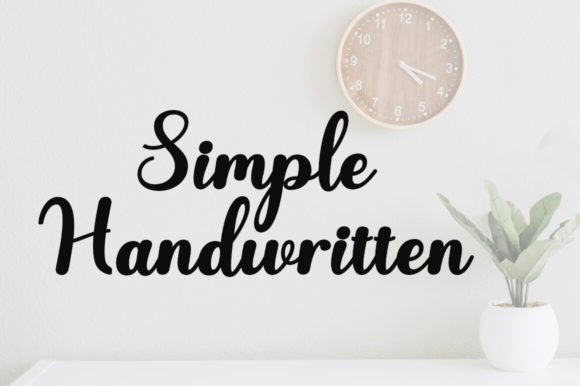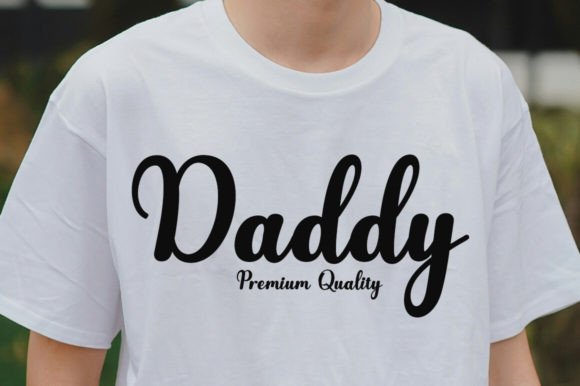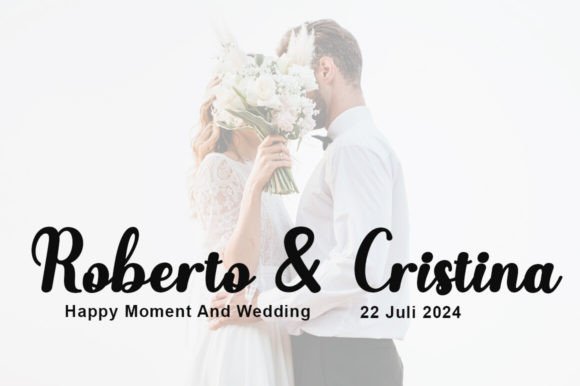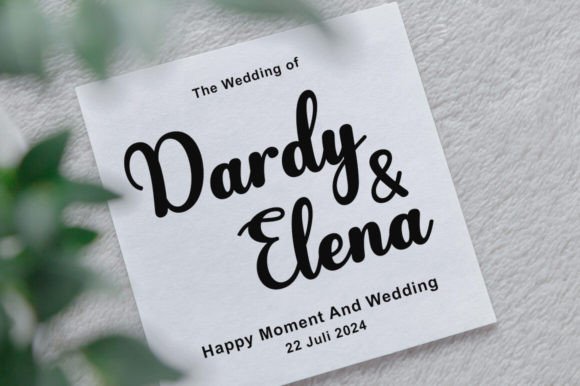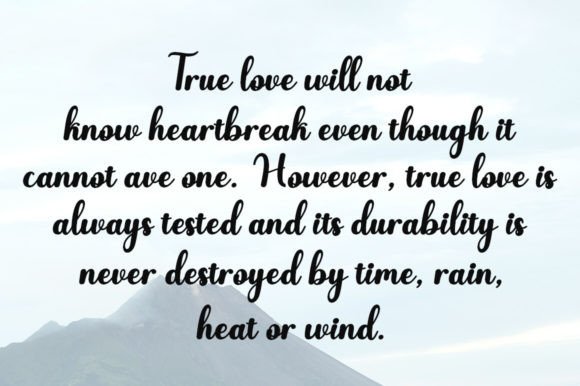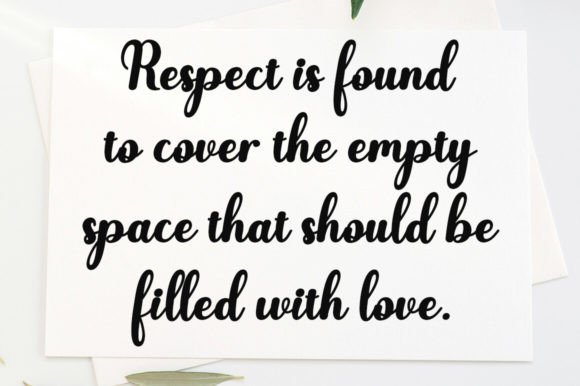
Discover the Timeless Charm of Baby Girl Font
There’s something special about the moment when a design idea clicks – the spark of creativity, the rush of excitement, and the thrill of bringing it to life. For designers, these moments are what make the craft so rewarding. And when it comes to adding a touch of elegance and sophistication to your projects, one font stands out from the rest: Baby Girl.
Baby Girl Font is a beautiful, flowing handwritten font that combines the artistry of traditional calligraphy with a modern, timeless feel. Its carefully crafted characters exude a subtle, handwritten charm that’s perfect for adding a touch of whimsy and personality to your designs. Whether you’re working on a wedding invitation, a baby announcement, or a social media campaign, Baby Girl Font is sure to bring a touch of sophistication and elegance to your creative endeavors.
Baby Girl Font Key Features
- Font Style: Cursive, Script, Handwritten
- Unique Characteristics: Whimsical, playful, and elegant, perfect for baby-related designs, invitations, and other feminine projects
Designer Review: Baby Girl Font
Overall, I think the Baby Girl Font is a cute and playful addition to any design project. It’s perfect for creating a whimsical and childlike atmosphere.
- ✨ Unique and feminine script style
- ✨ Perfect for baby-themed designs, children’s products, and nursery decor
- ✨ Great for adding a touch of sweetness and innocence to your designs
The Baby Girl Font is a great choice for designers who want to create a soft and delicate look. The font’s elegant and cursive style makes it perfect for wedding invitations, birthday cards, and other special occasions.
- ⚠️ Limited versatility – may not be suitable for more mature or serious designs
- ⚠️ Some characters may be difficult to read or understand
In conclusion, the Baby Girl Font is a charming and delightful addition to any design project. While it may have some limitations, it’s perfect for designers who want to create a sweet and childlike atmosphere.
The Baby Girl Font is ideal for creating designs that evoke a sense of innocence and cuteness, such as:
– Baby shower invitations
– Nursery decor
– Children’s product packaging
– Social media posts featuring babies or young girls
To get the most out of the Baby Girl Font, try pairing it with pastel colors, floral patterns, and other feminine elements. You can also experiment with different font sizes, colors, and styles to create a unique and eye-catching design.
Alternatives to “Baby Girl Font” for Designers
Great Vibes is a beautiful, elegant script font that’s perfect for creating a whimsical and romantic atmosphere. It’s ideal for wedding invitations, baby shower invitations, and other special occasions. Compared to Baby Girl Font, Great Vibes has a more refined and sophisticated look, making it suitable for more formal events.
Pacifico is a modern script font that’s great for adding a touch of sophistication and elegance to your designs. It’s perfect for creating invitations, social media graphics, and other digital content. Compared to Baby Girl Font, Pacifico has a more relaxed and casual feel, making it ideal for everyday designs.
Carolyna Pro is a elegant script font that’s perfect for creating a luxurious and high-end feel. It’s ideal for fashion brands, luxury events, and other high-end designs. Compared to Baby Girl Font, Carolyna Pro has a more refined and sophisticated look, making it suitable for premium brands and events.